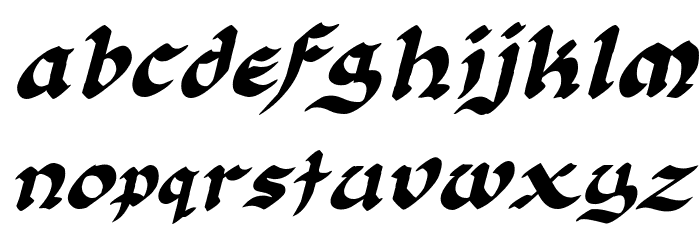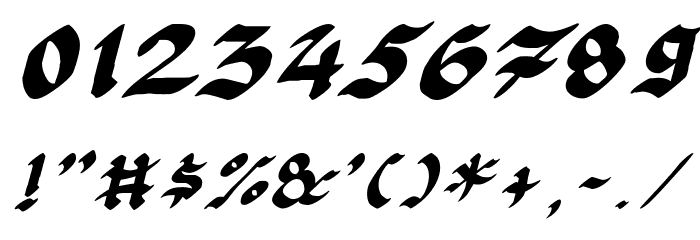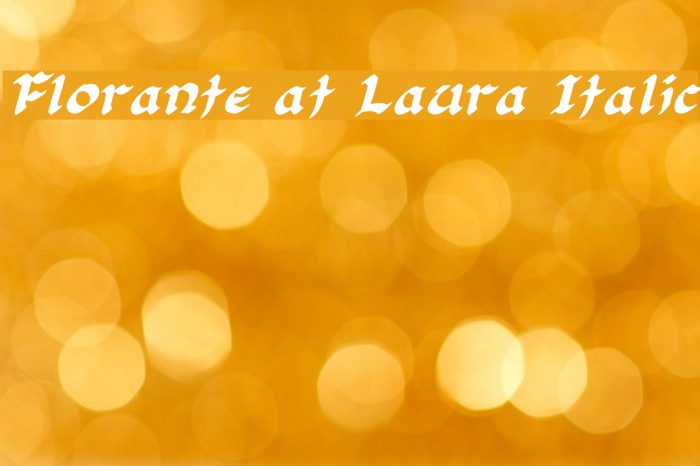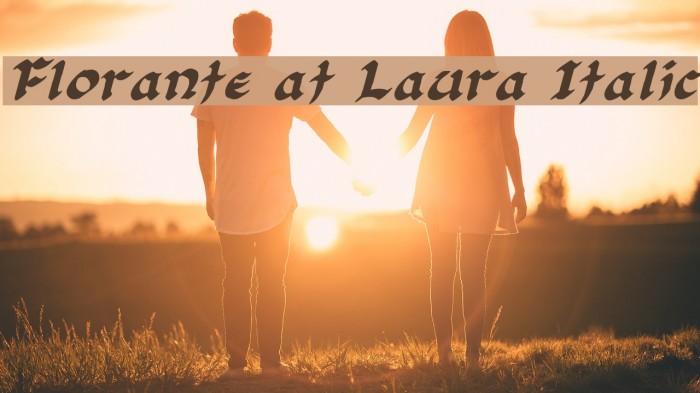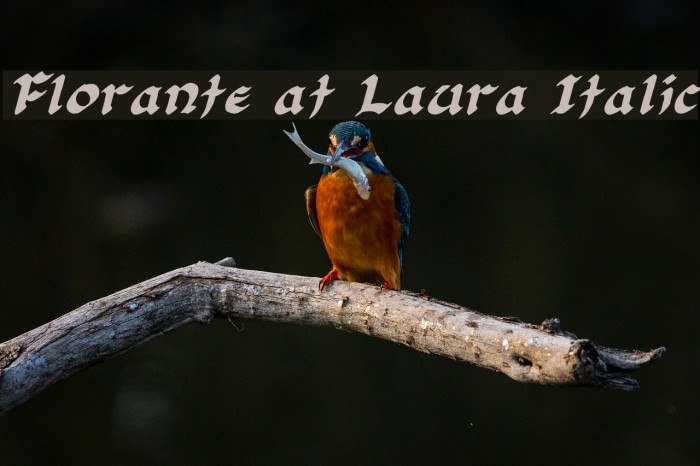
Florante at Laura Italic Font
This font exhibits a classic blackletter style with bold, angular strokes and a distinct medieval flair. The uppercase and lowercase letters are characterized by sharp, pointed edges and dramatic flourishes, reminiscent of traditional calligraphy. The numerals and special characters maintain this ornate style, providing a cohesive look across all glyphs. The font's intricate design and historical aesthetic make it ideal for projects that require a touch of elegance and tradition.
A bold, blackletter-style font with sharp, angular strokes and a medieval aesthetic.
- Proposed Projects: Ideal for historical documents, invitations, certificates, and branding that requires a classic or medieval touch.
- Category: Blackletter
- Overall Style: Classic
- Use Case: Logos, Headlines, Decorative text